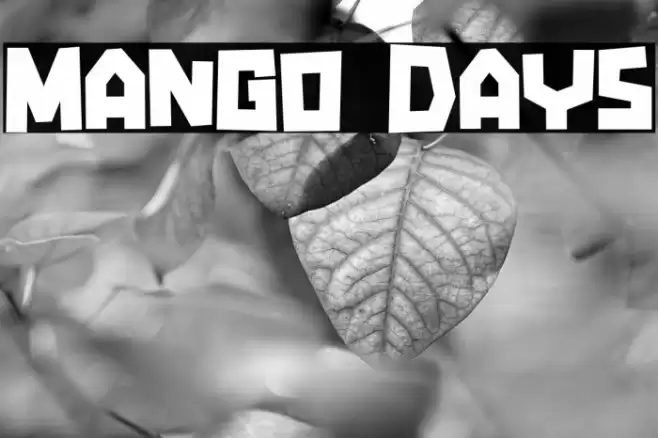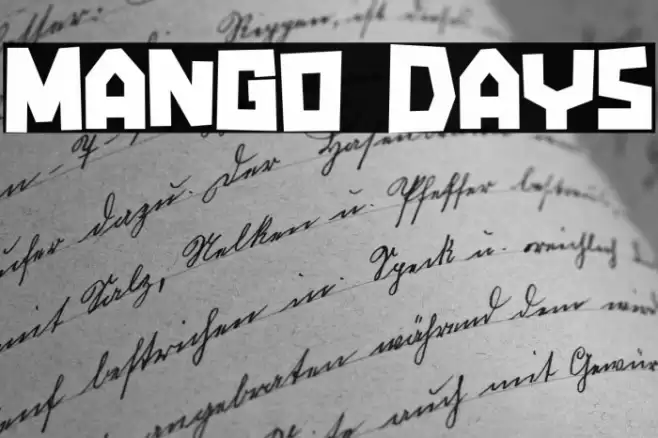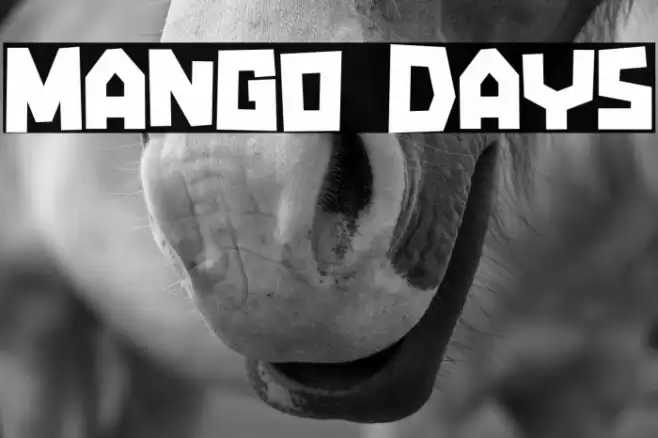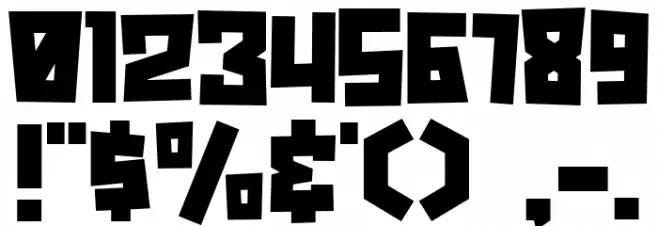
Mango Days Font
Mango Days Description
This font features a bold, geometric style with a playful and quirky appearance. The characters are blocky and angular, giving them a distinctive and eye-catching look. The uppercase and lowercase letters maintain a consistent width, creating a uniform appearance across the text. The numbers and special characters follow the same bold and angular design, ensuring cohesion throughout. This font's unique style makes it suitable for projects that require a fun and dynamic visual impact.
A bold, geometric font with a playful and quirky style from Cartoon fonts.
- Font: Mango Days
- Proposed Projects: Ideal for posters, event flyers, children's book covers, and branding that requires a fun and dynamic look.